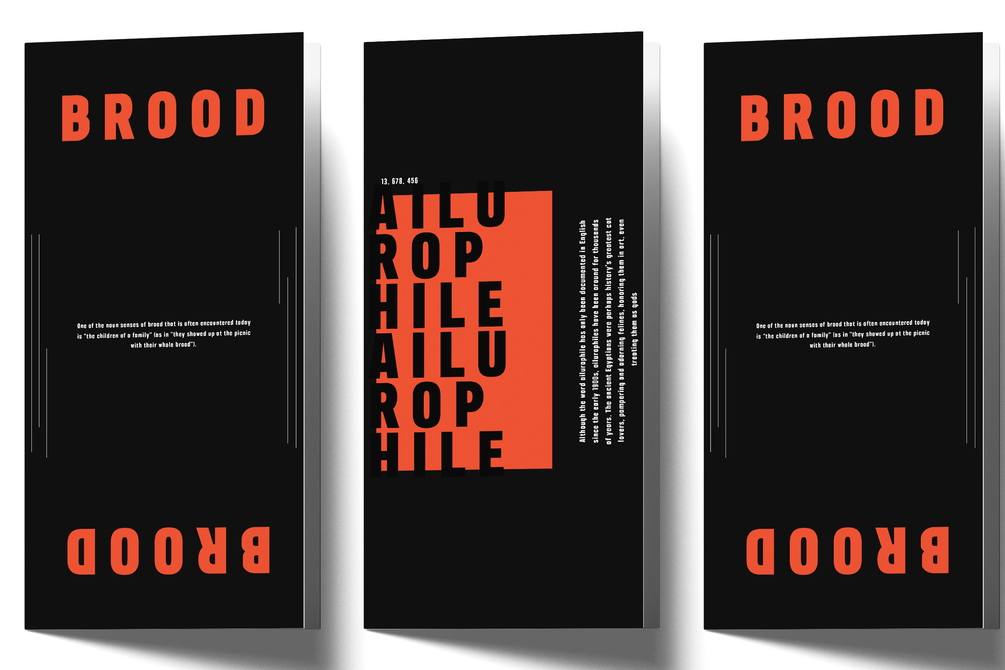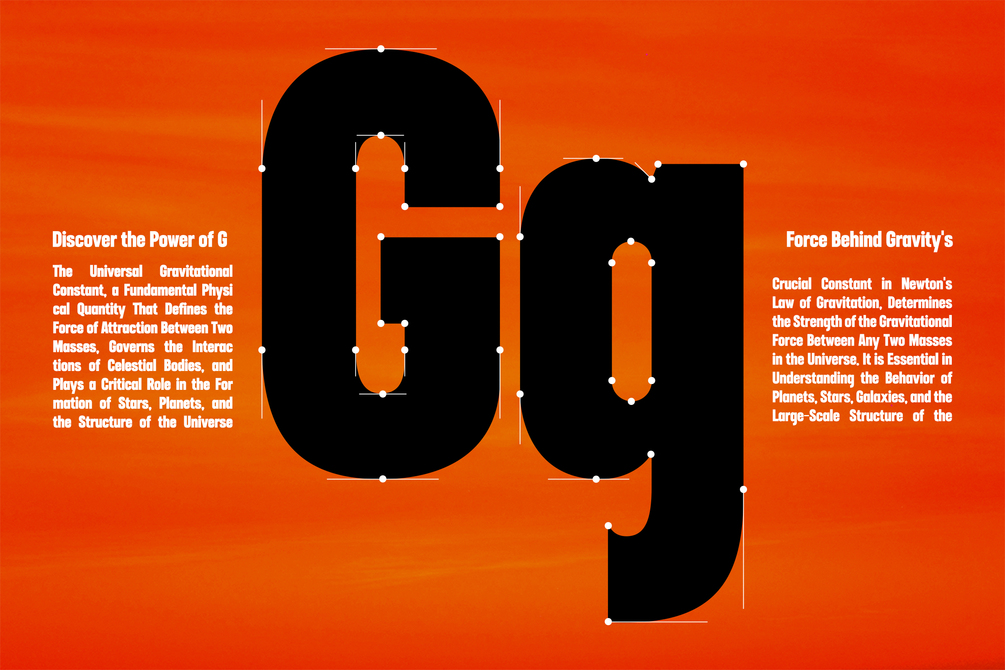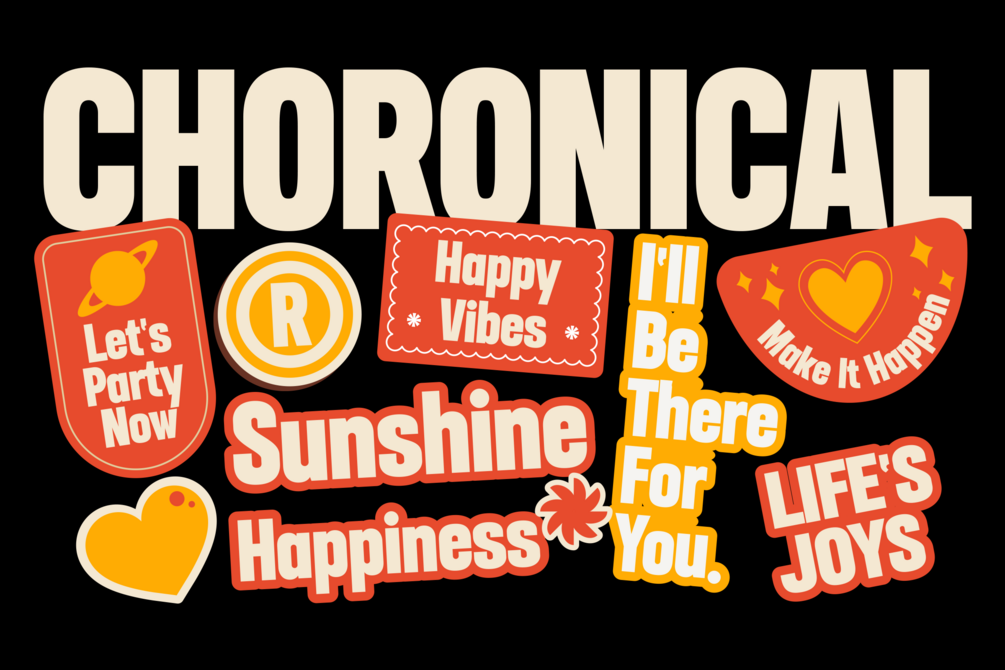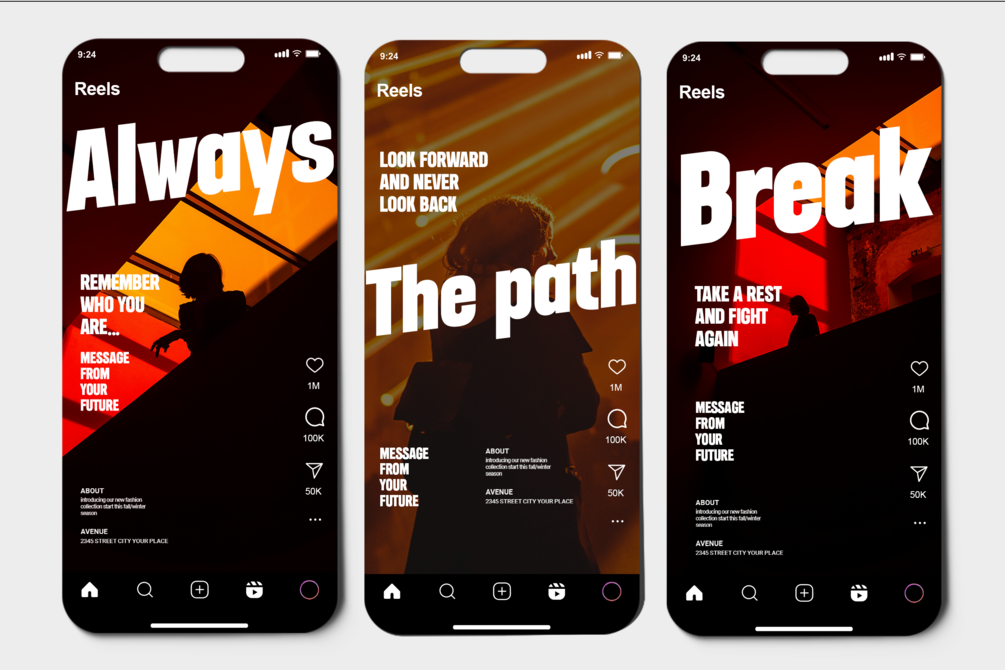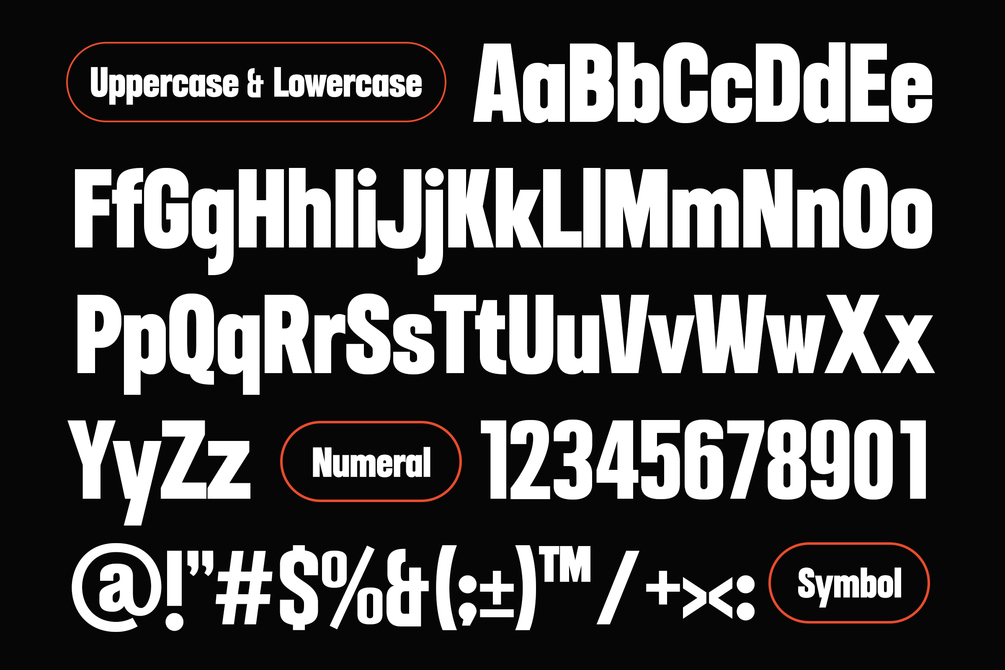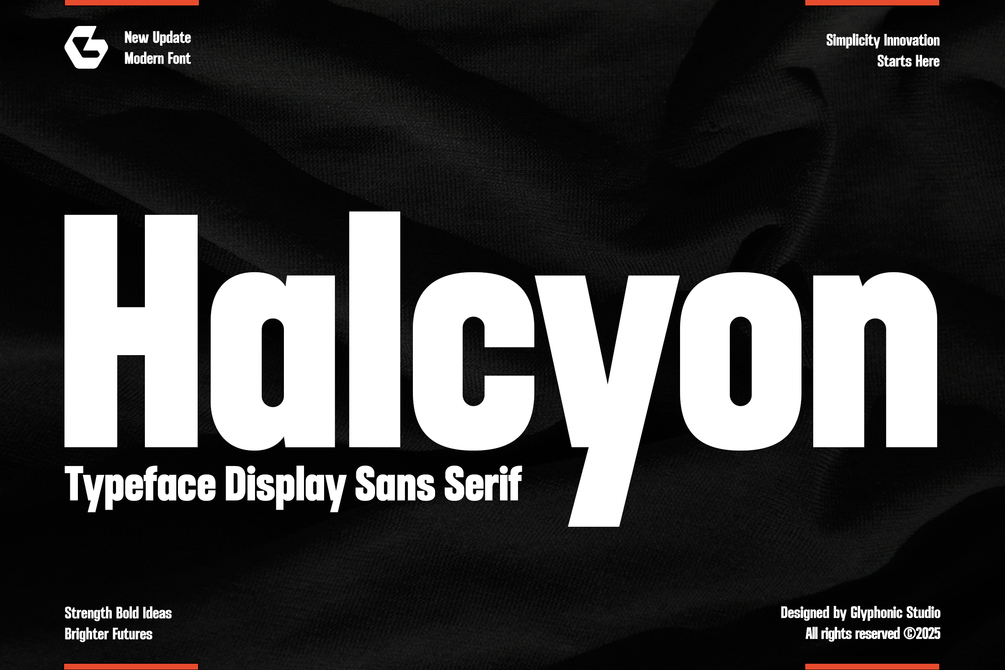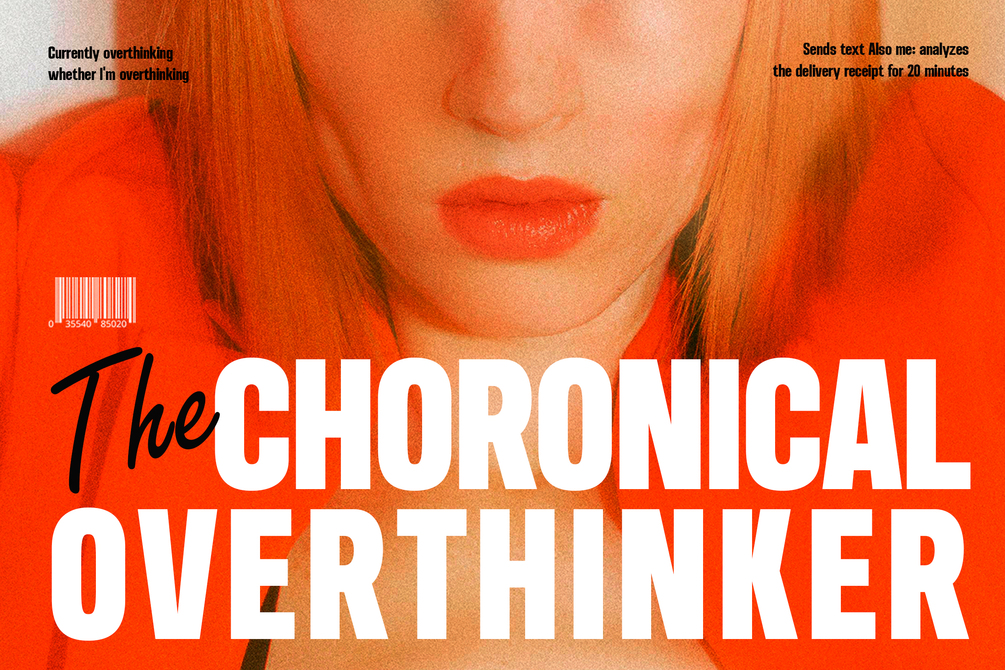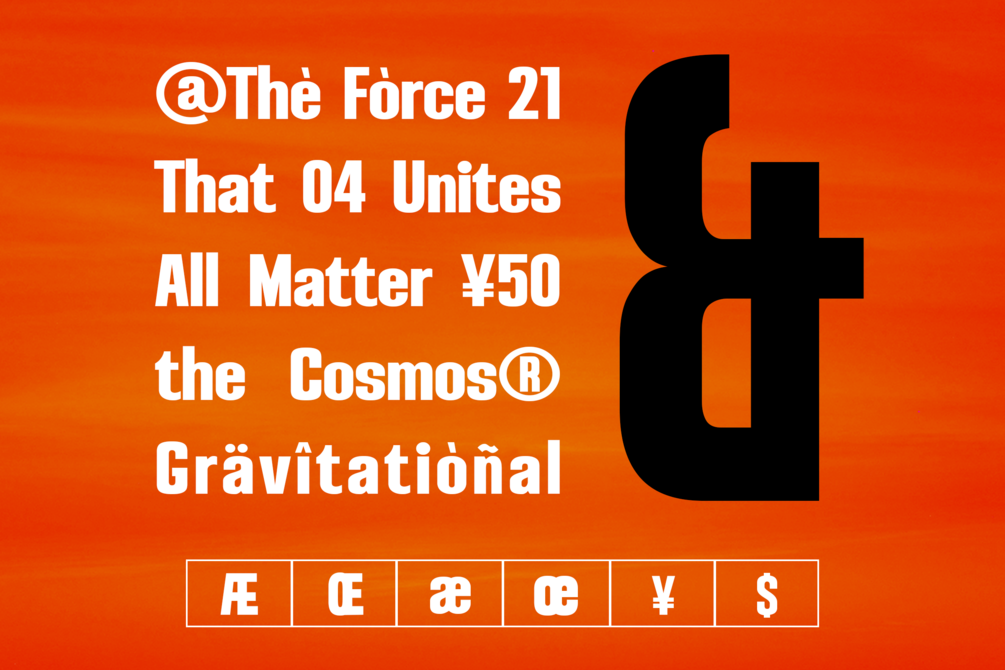
GC Halcyon - Heavy Condensed Font
Halcyon is a Heavy Condensed Sans Font that blends modern edgy with robust style.
Perfectly suited for headlines, branding, logos, packaging, editorial layouts, it’s crafted to leave a lasting impression.
With its high contrast strokes, modern sans, and future style, Halcyon brings personality and sophistication to any design.
Whether you're designing for fashion, lifestyle, or artistic visuals, this typeface offers versatility and refined style.
Make your design bold, refined, and timeless with Halcyon.